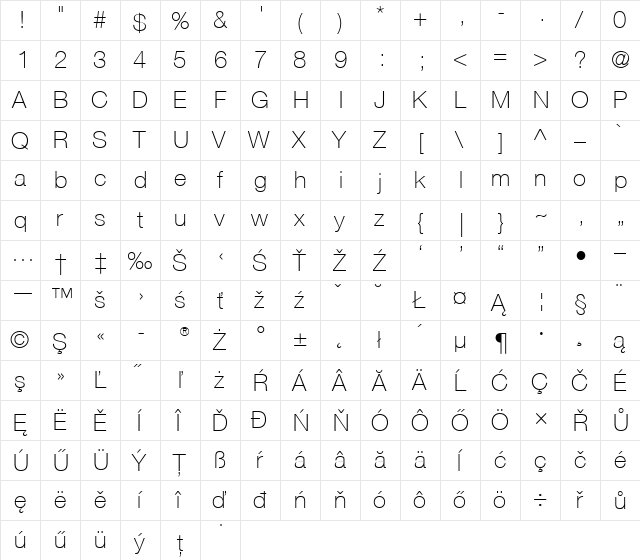
Helvetica CE 35 Thin Regular
Design Context for Helvetica CE 35 Thin Typeface
Helvetica CE 35 Thin takes a measured approach to typography — its balanced proportions and neutral character make it a reliable workhorse for both digital and print work. The delicate stroke weight brings airiness and refinement to layouts.